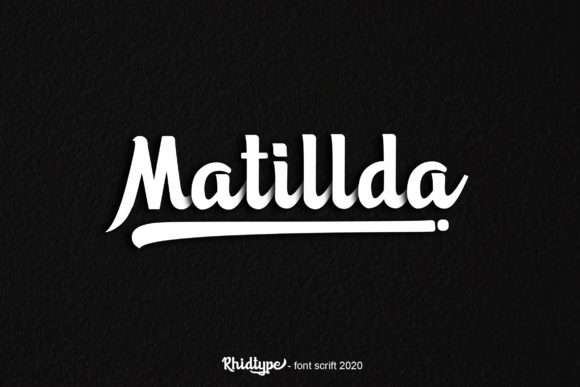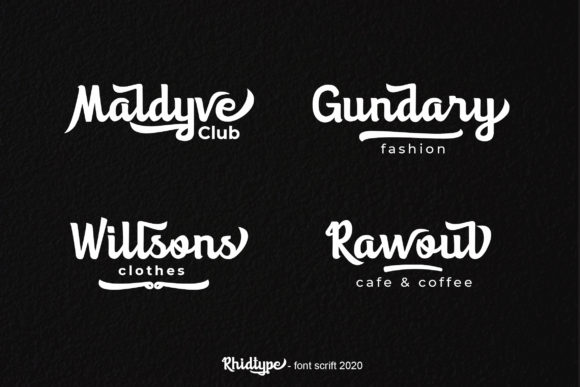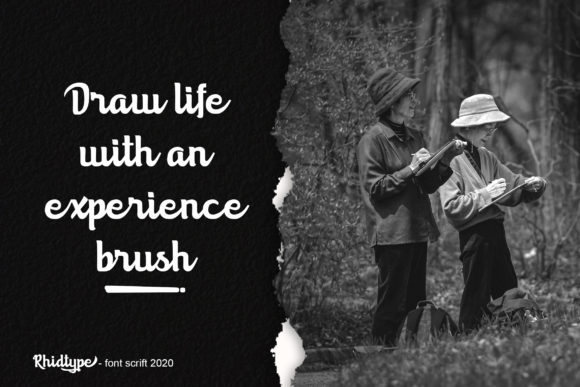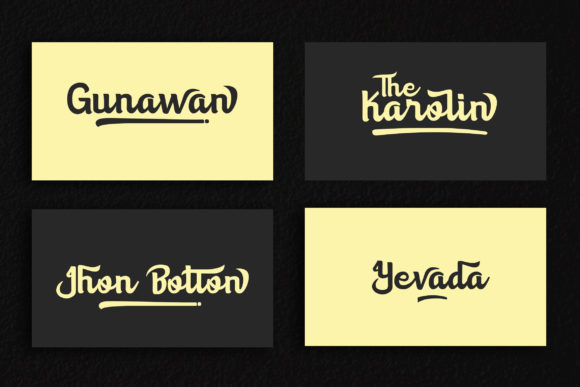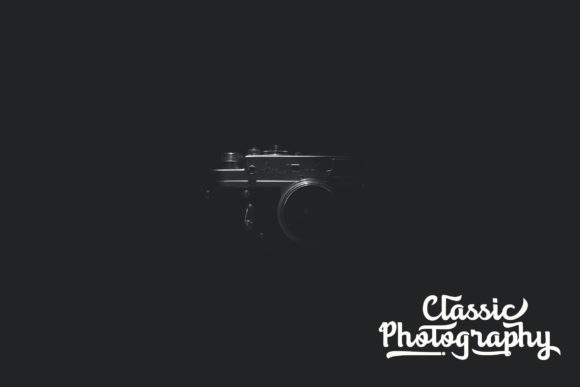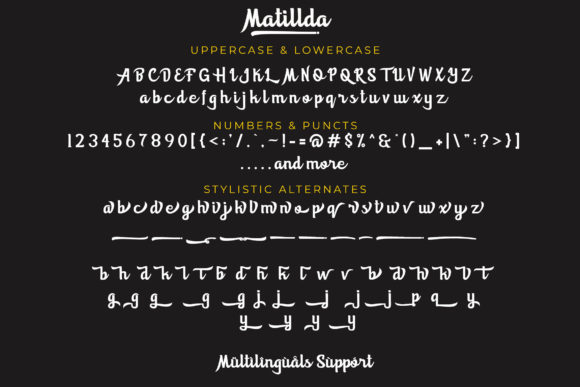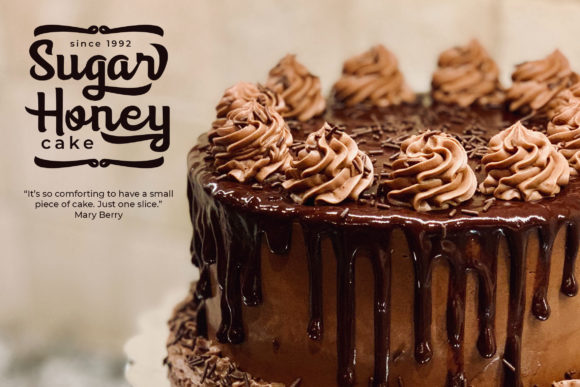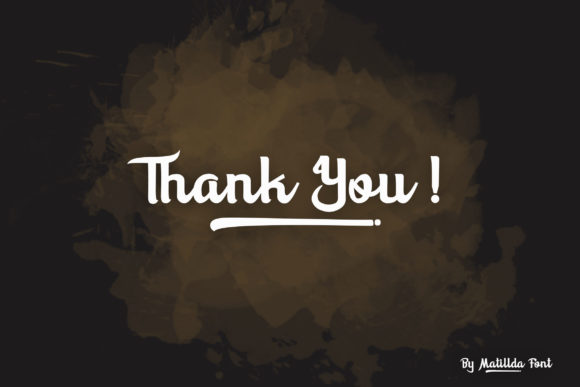
Matillda Font
About Matillda Font
Matillda is inspired by classic typography and brings its own unique style to any design project. It maintains its classy calligraphic influences while feeling contemporary and fresh. This versatility will appeal to a wide range of crafty ideas, from letterheads and titles, to stationery.